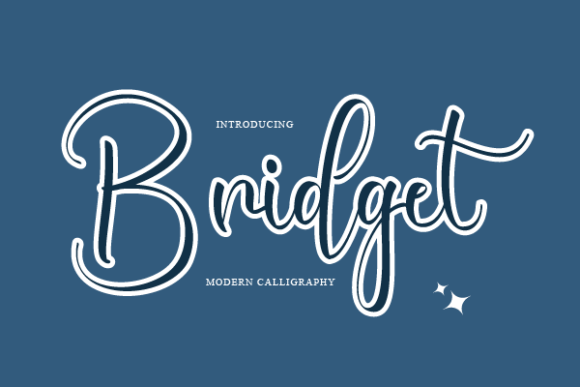
The Quest for the Perfect Font: Discovering Bridget
I still remember the design project that led me to Bridget Font. I was working on a branding project for a trendy boutique, and I needed a font that would capture the essence of their stylish and chic vibe. After hours of scrolling through font libraries and trying out different combinations, I stumbled upon Bridget – a beautiful script font that instantly resonated with the client’s aesthetic.
From that moment on, I was hooked. I started experimenting with Bridget in various projects, from blog posts to logos, and I was amazed by its versatility and elegance. In this article, I’ll share my experience with Bridget Font, including its features, how to use it on different platforms, and some helpful tips and tricks.
An Honest Review of Bridget Font
What I Love About Bridget ✨
• 💫 Elegant and stylish script font perfect for high-end branding and designs
• ✅ Highly versatile and can be used for various projects, such as blog posts, logos, ads, invitations, and more
• 🌈 Beautifully crafted with attention to detail, giving it a unique and sophisticated feel
• 📈 Excellent for headlines, titles, and short paragraphs, but also works well for longer texts
• ⚠️ May not be the best choice for very small font sizes or body text, as it can become a bit ornate
• 🤔 Limited availability of certain characters or glyphs, but can be worked around with OpenType features
The Story Behind Bridget Font
Bridget Font was designed by a talented type designer who’s passionate about creating beautiful and functional fonts. The story goes that the designer was inspired by classic calligraphy and handwriting, and wanted to create a font that would capture the essence of elegance and sophistication.
Q: What is Bridget Font?
A: Bridget Font is a stylish and chic script font designed for creative projects, such as branding, logos, blog posts, and more.
Q: Is Bridget Font suitable for body text?
A: While Bridget Font is beautiful and elegant, it may not be the best choice for body text, as it can become a bit ornate. However, it works well for headlines, titles, and short paragraphs.